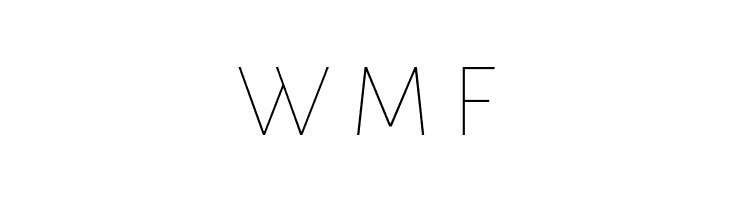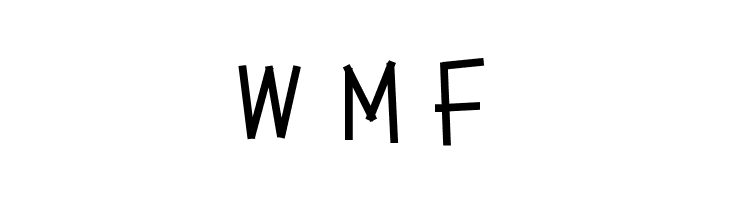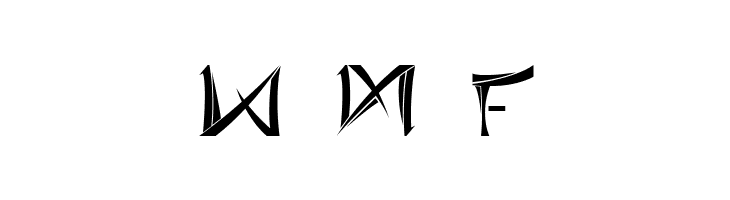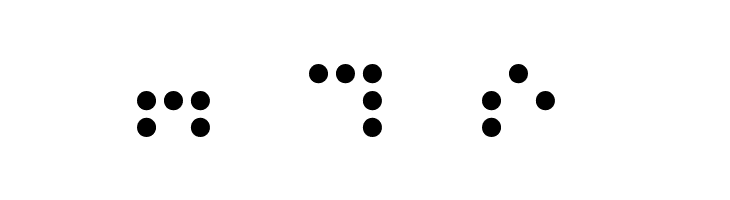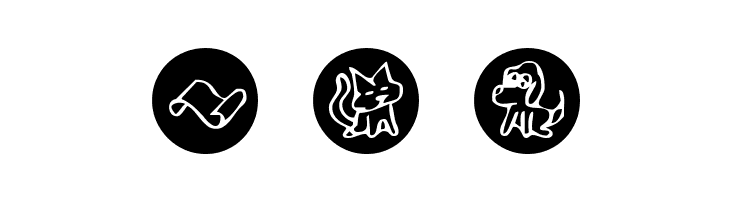
A playful, hand-drawn font with a casual and whimsical style.
A bold, angular font with sharp edges and dynamic movement.
A modern, geometric font with bold, angular shapes and a clean design.
A geometric, monospaced font with bold strokes and rounded edges.
A modern-vintage serif font with arrow-like serifs and artistic flair.
A bold, distressed font with a grunge texture.
A tactile writing system using raised dot patterns for the visually impaired.
A decorative font featuring playful, hand-drawn icons in circular enclosures.
A modern, geometric font with a clean and minimalist design.